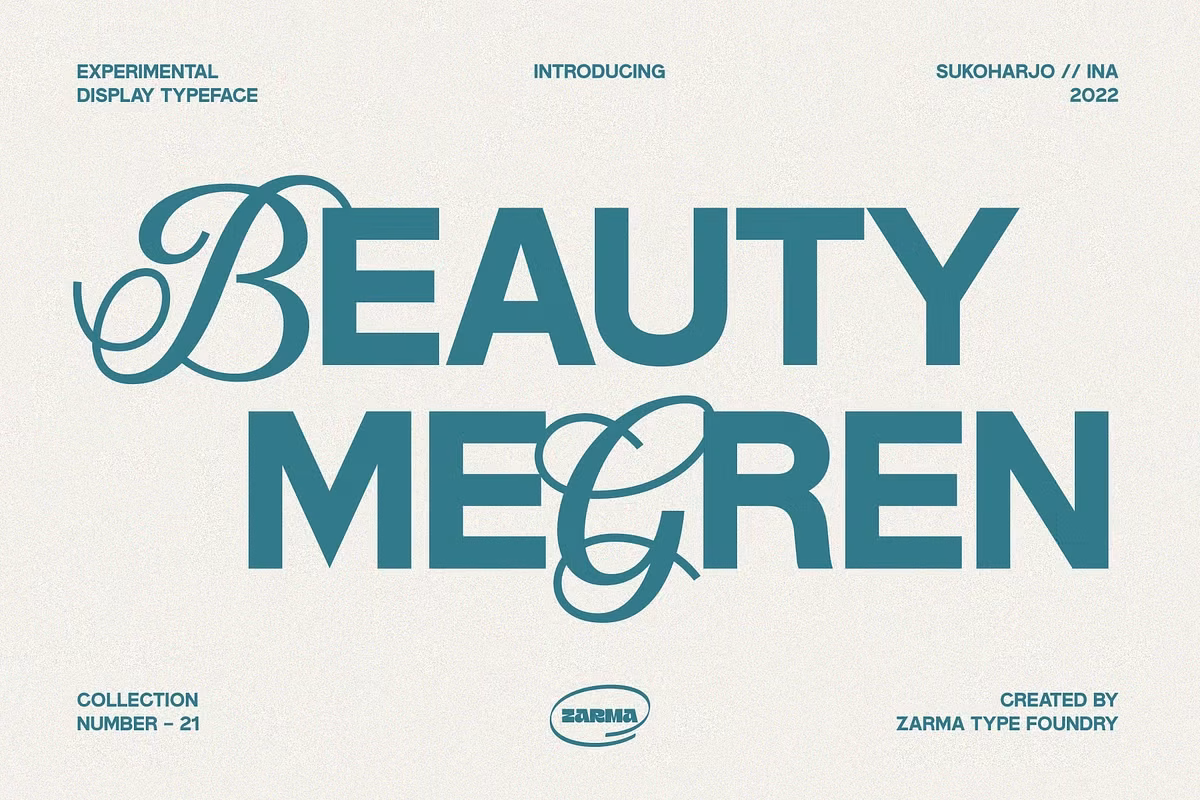
Megren - Combination Font Free Download is a versatile and modern typeface that combines elegant script with clean, geometric sans-serif styles. Perfect for a wide range of design projects, including branding, logos, invitations, and websites, Megren offers a sophisticated yet approachable look. Its unique combination of fonts makes it ideal for projects that require both professionalism and creativity.